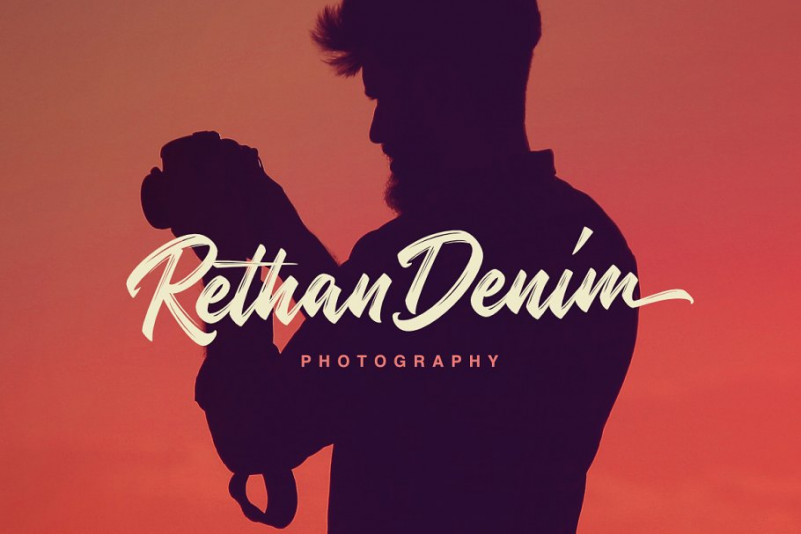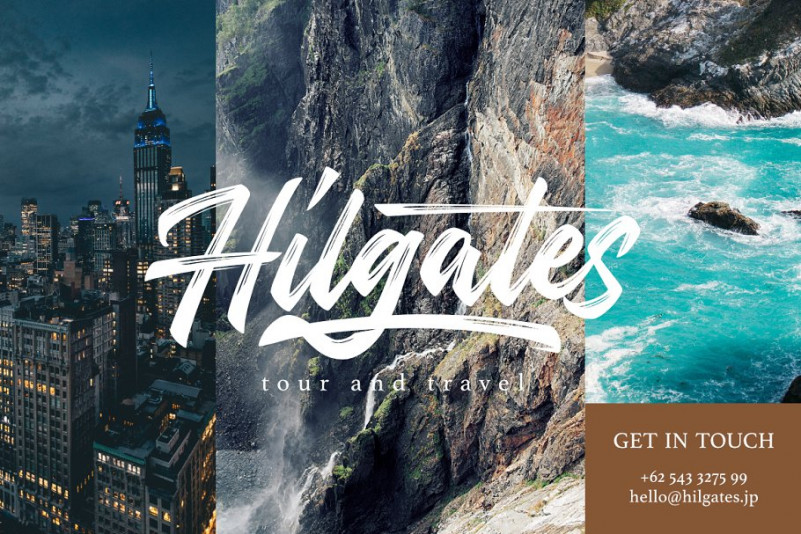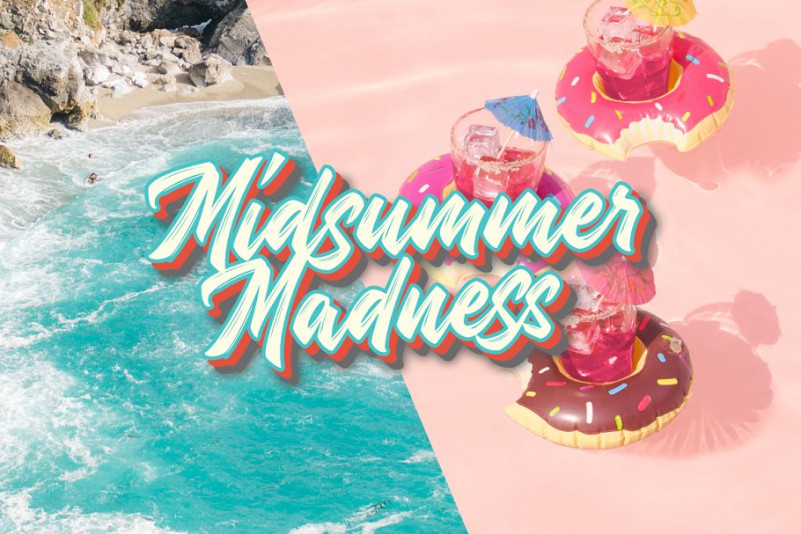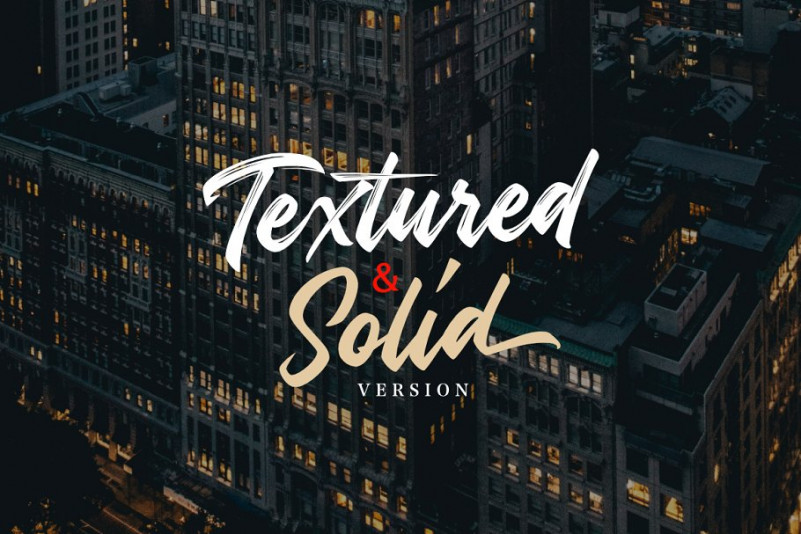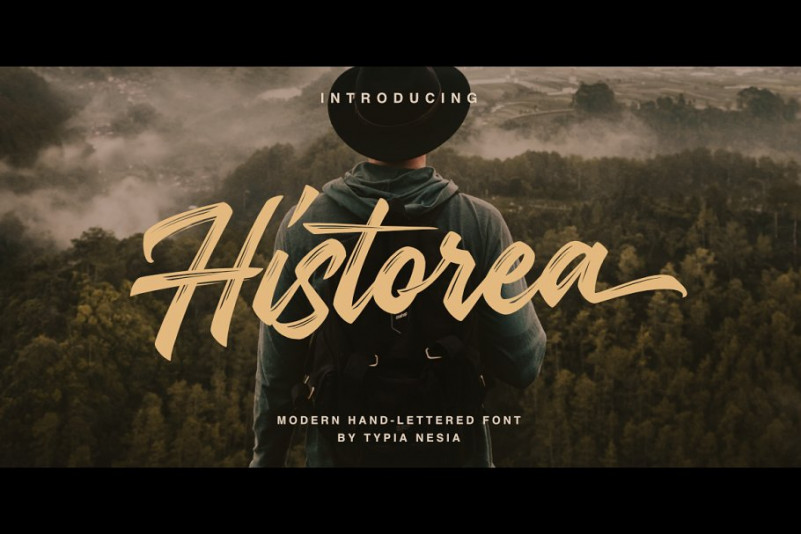
Historea Brush Font
Historea Brush – Demo Font
Historea Font is textured brush font, contemporary approach to design, handmade natural with an less regular baseline. It is design and shared by Typia Nesia. It’s a modern and natural hand lettered font. Work great for any design needs : logo, branding, modern advertising design, logos, poster quote, book / cover Title, editorial design, website / blog, card, custom mug, pillow, t-shirts, and any hand-lettered needs.